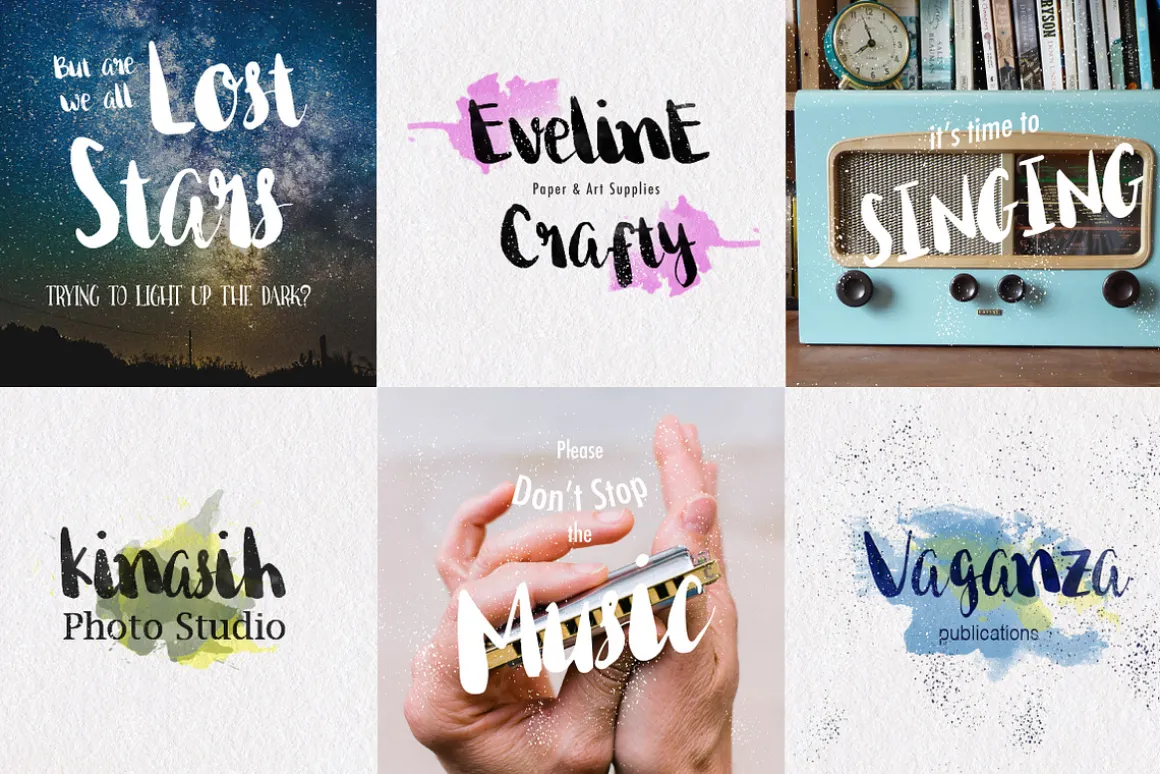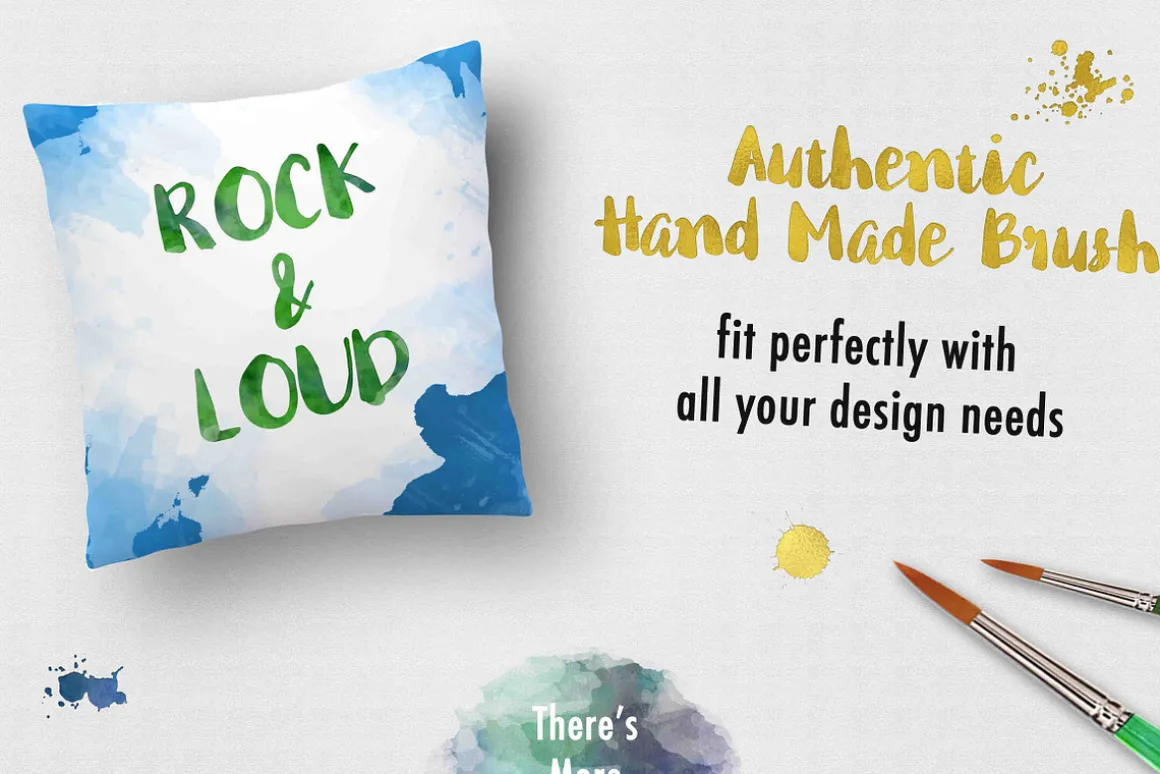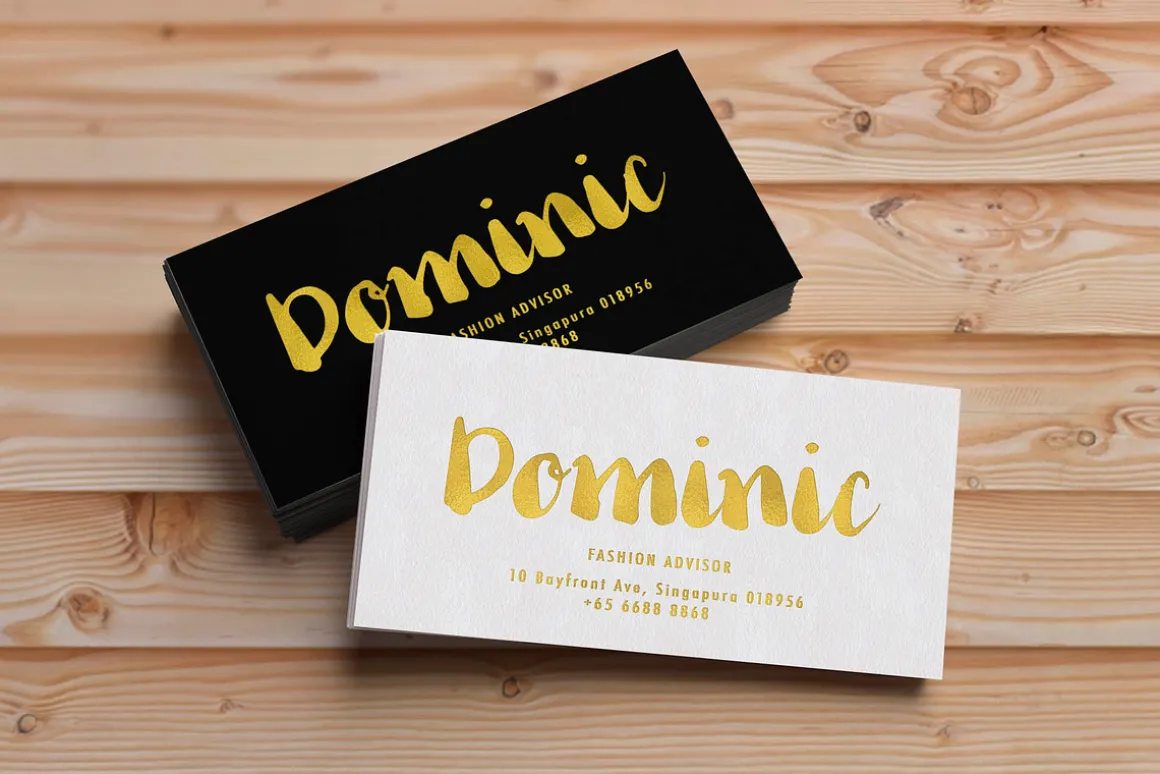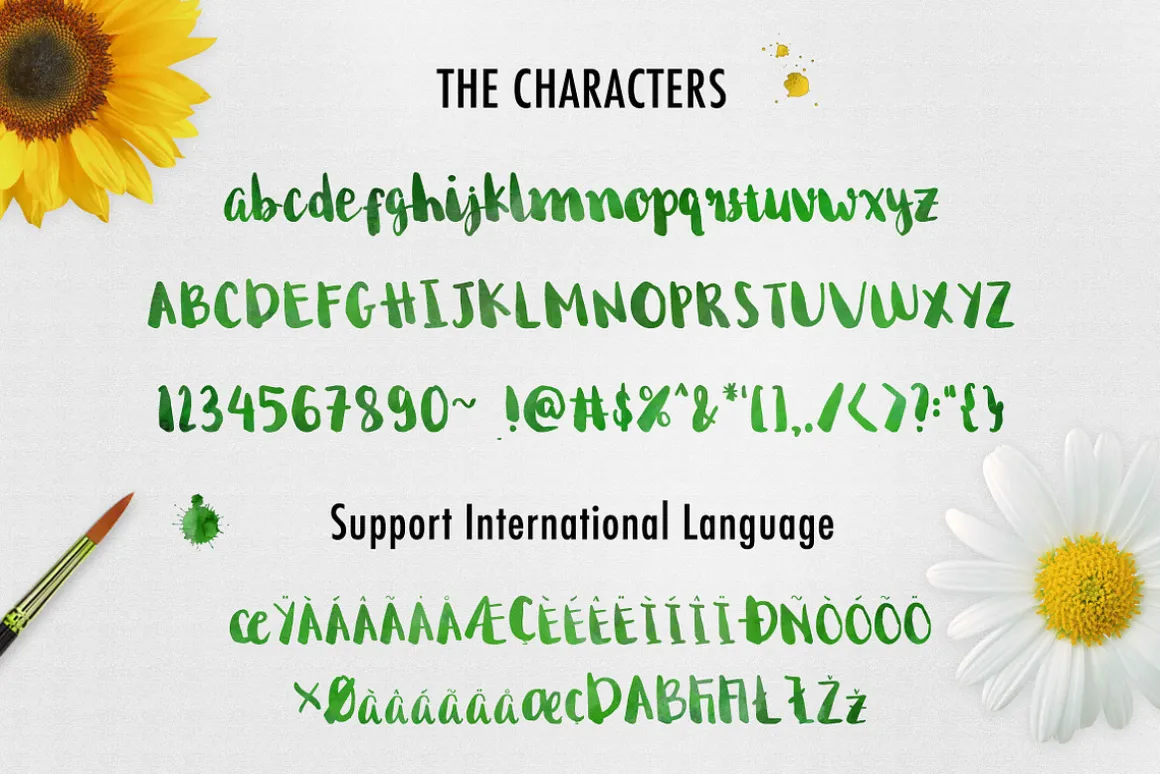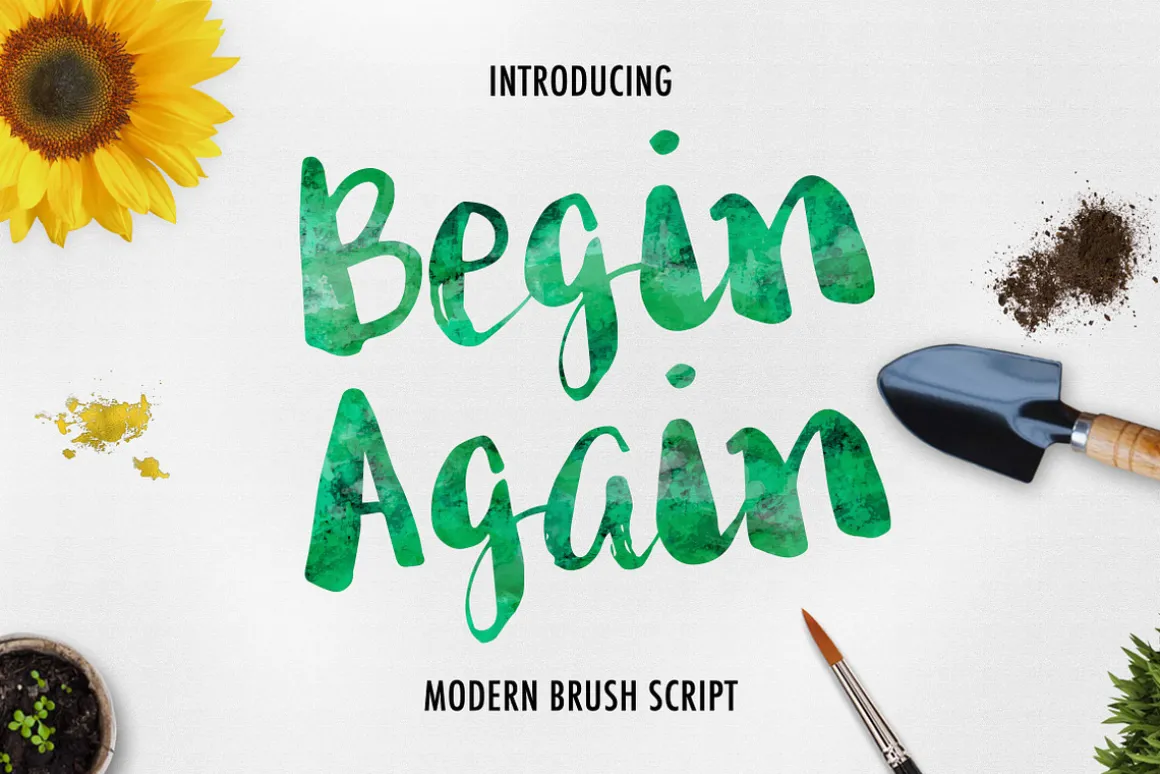
INTRODUCING BEGIN AGAIN
Begin Again is our fresh from the oven brush script font, it’s made from scratch by hand and coffee(lot).
With dancing baseline characters that will awake your creativity and save your valuable tons of time to make amazing work. This font is suitable for wedding invitation, greeting cards, posters, labels, t-shirt design or anything you want to sell on your etsy page.
Perfect for ink or watercolour based designs or on its own as bold hand-brushed lettering.Personal and Commercial use is permitted